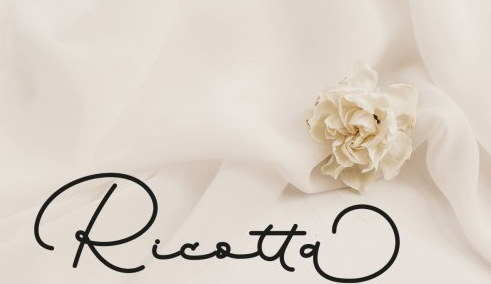
Ricotta | Script & Sans Serif Font
Ricotta is a cute handwritten font duo.
You will receive two different fonts that coordinate perfectly together!
Ricotta is a tall, thin font.
Ricotta is an elegant, long script font.
This font is perfect for quotes, headings, blogs, logos, invitations and more!
This font does include accent characters.